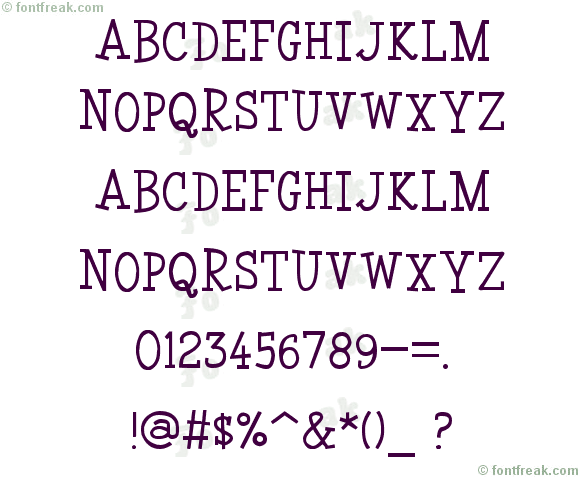
Coyotris Serif
About Coyotris Serif
Coyotris Serif is a captivating serif font designed by Jayvee Enaguas, available as a freeware typeface. This font draws inspiration from classic typography, featuring a unique blend of traditional and contemporary elements that make it versatile for various design applications. The stroke weight is balanced, providing a sense of elegance, while the moderate contrast between thick and thin lines adds visual interest. The letterforms are well-spaced, ensuring legibility, and the subtle decorative elements in the serifs give it a distinctive character that stands out in any layout.
Coyotris Serif is perfect for a variety of specific use cases. Its refined style makes it an ideal choice for wedding invitations, where elegance and readability are essential. Additionally, it can enhance movie posters, particularly those aimed at a nostalgic audience, as it resonates with classic animation themes. Restaurant menus will benefit from its sophisticated appearance, attracting diners with its inviting charm. Furthermore, content creators looking to establish a strong brand identity can utilize this font in social media graphics, ensuring their posts capture attention.
The target audience for Coyotris Serif includes graphic designers, small business owners, and content creators who appreciate a blend of artistic flair and practicality in their typography. This font is particularly suited for those who aim to evoke a sense of nostalgia and warmth in their projects.
What sets the Coyotris Serif font apart is its ability to merge classic influences with modern usability, making it a versatile addition to any designer's toolkit. With its unique features and free download option, Coyotris Serif stands out as a valuable resource for anyone looking to elevate their visual communications.